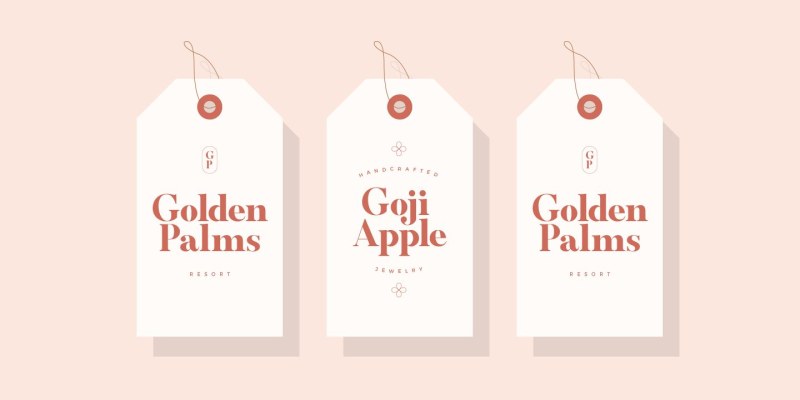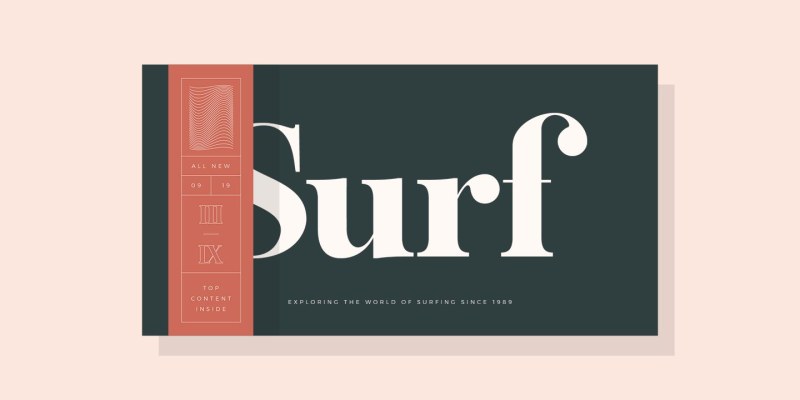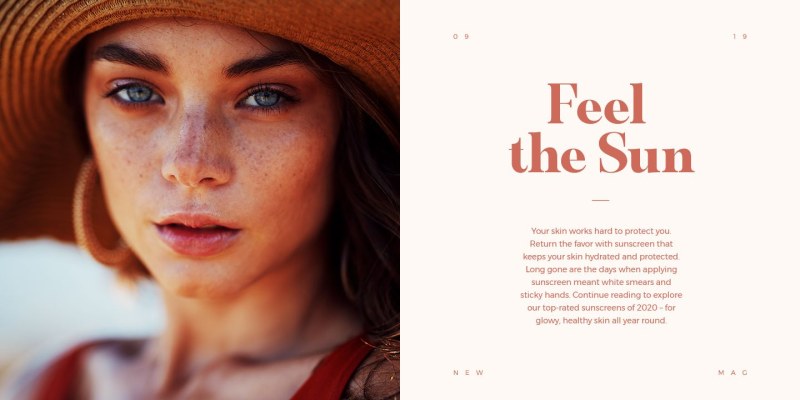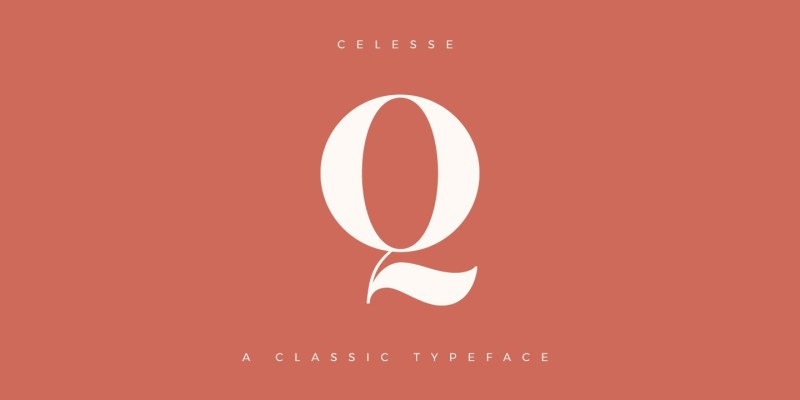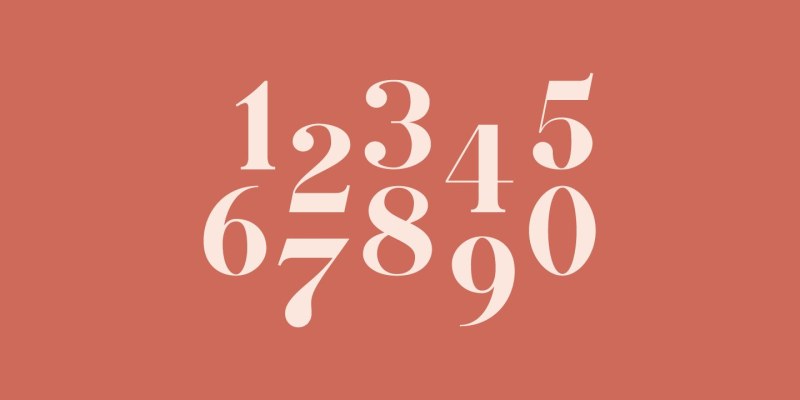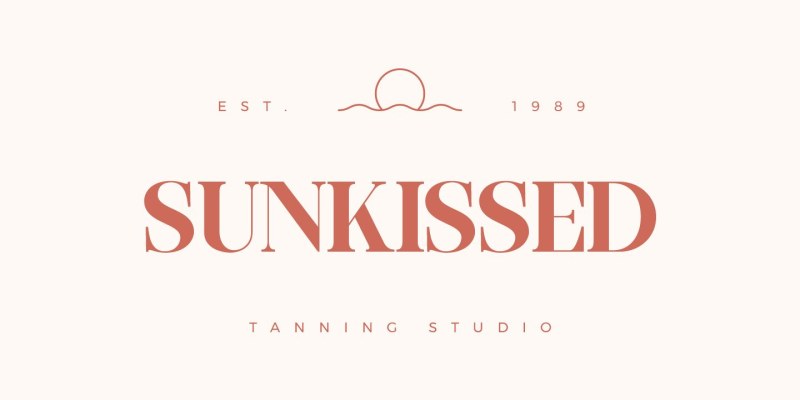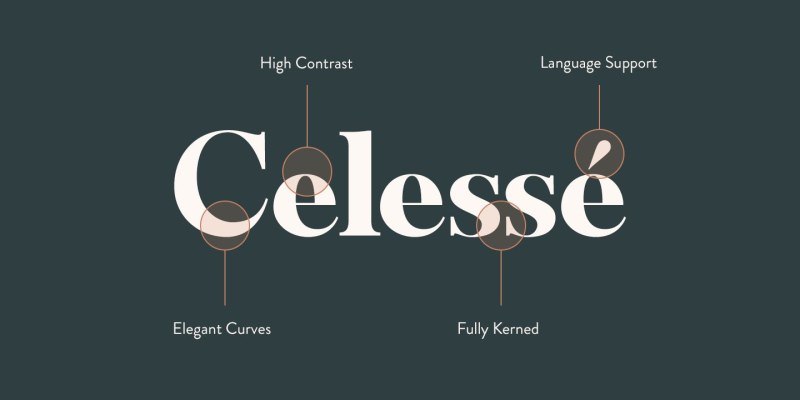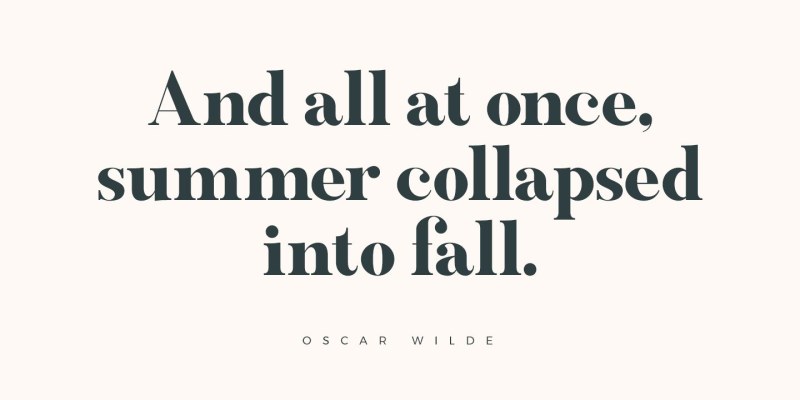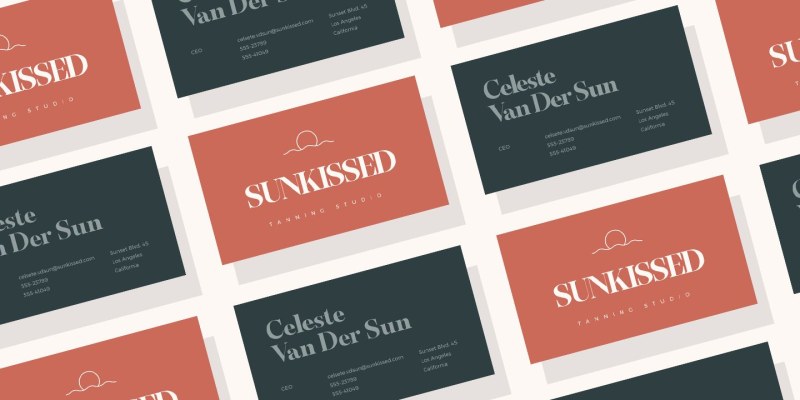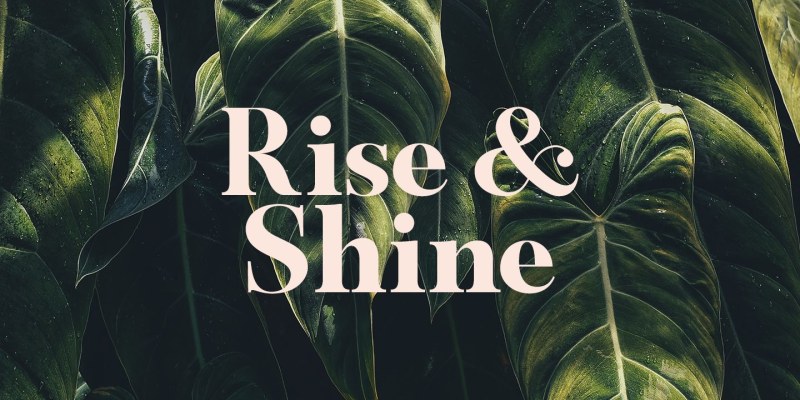
Celesse Font
Celesse – A classic serif font, perfect for creating bold & gorgeous designs. Pour yourself a glass of your finest wine and get classy with Celesse. This font is great for designing elegant logos, quotes, magazine covers, wedding cards, invitations, and brandings. Its stark contrasting lines are best used in headlines and projects with big type. Celesse adds timeless beauty, heavenly curves and a classic appearance to any project.
Celesse Font is a Serif Fonts font that brings a professional and versatile look to your projects. Celesse – A classic serif font, perfect for creating bold & gorgeous designs.